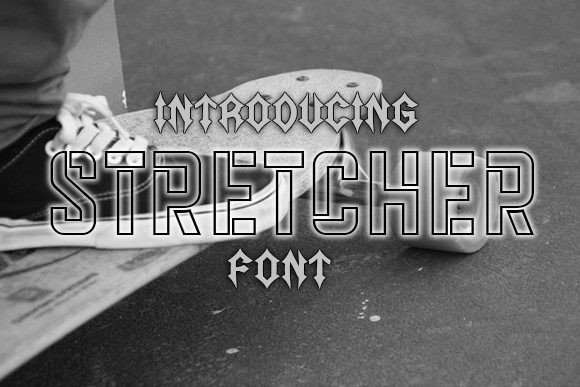
Are you tired of boring, predictable fonts that blend in with the crowd? It's time to unleash your creativity with Stretcher Font, the game-changer in the display font family. Designed by the visionary mind of vladimirnikolic, Stretcher Font is not just a font; it's an artistic masterpiece that will elevate your designs to new heights.
Step into a world where your words dance with flair and style. With Stretcher Font, every letter becomes a bold statement, commanding attention and leaving an unforgettable impression. Whether you're crafting captivating headlines, eye-catching posters, or trendy t-shirts, Stretcher Font will transform your designs into works of art.
Imagine the impact of a tri-fold poster that leaps off the page, its bold and striking text drawing crowds like a magnet. Stretcher Font empowers you to create designs that resonate with your audience, making them feel the passion and purpose behind your words.
But don't just take our word for it. Let your imagination soar and dive into the endless possibilities that Stretcher Font offers. From flyers that demand attention to posters that captivate, the creative journey is yours to explore. With Stretcher Font, your designs will become a symphony of style and substance, captivating hearts and leaving an indelible mark on the world.
Don't settle for ordinary when you can embrace the extraordinary. Choose Stretcher Font, the font that will ignite your creativity and propel your designs to the forefront. Let the vibrant lines and captivating curves of Stretcher Font weave a spell of enchantment, leaving your audience spellbound and eager for more.